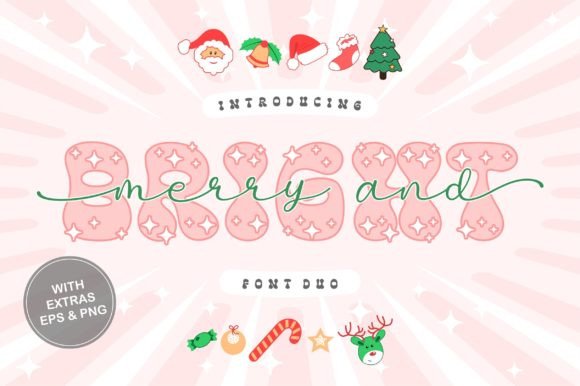
Introducing the Merry and Bright Duo Font, the ultimate font for vintage enthusiasts and lovers of all things festive! Created by the talented Tedha Studio, this font duo truly embodies the spirit of the holiday season. With a delightful combination of script and decorative styles, Merry and Bright is here to bring joy and charm to your Christmas designs.
Get ready to immerse yourself in the sweet and adorable world of Merry and Bright. This font duo is designed to capture the cheerful and festive atmosphere of Christmas, making it the ideal choice for creating captivating and heartwarming designs. Its versatility allows you to explore a wide range of creative possibilities and effortlessly bring your visions to life.
With its script style, Merry and Bright adds a touch of elegance and sophistication to your designs. The flowing and whimsical letterforms are bound to captivate your audience, evoking a sense of nostalgia and creating a truly enchanting experience. Whether you're designing holiday cards, invitations, or festive banners, this font will make every word feel like a handwritten masterpiece.
But Merry and Bright doesn't stop there! Its decorative font variation adds a unique and charming touch to your designs. Perfect for creating eye-catching headlines, logos, and branding elements, this font will instantly grab attention and leave a lasting impression. Let your creativity shine as you explore the endless possibilities this font duo has to offer.
Embrace the magic of Christmas with Merry and Bright. Its nostalgic and heartwarming qualities will transport your audience to a world filled with joy, love, and the spirit of the season. Spread cheer and create memorable designs that will leave a lasting impact on anyone who lays eyes on them.